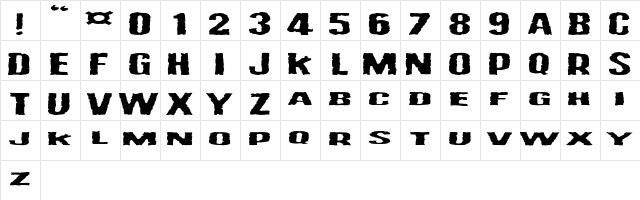
Vulgar Display Of Power Regular
Design Context for Vulgar Display Of Power Typeface
Vulgar Display Of Power has the bold swagger of sports branding: strong, assertive letterforms designed to dominate headlines and jerseys alike.
Built for sports team identities, athletic apparel, event posters, and high-energy promotional material.
Pro Tip: Vulgar Display Of Power thrives on contrast — try it large, bold, and tight against a clean background for maximum visual impact.